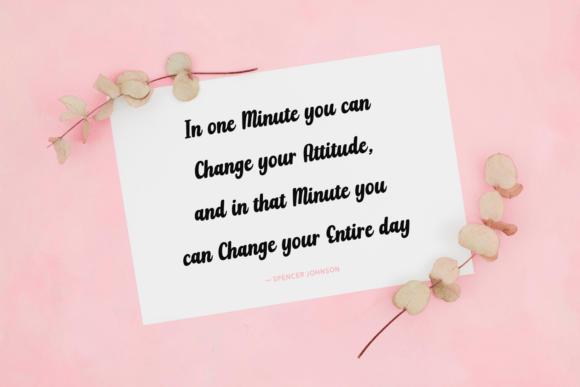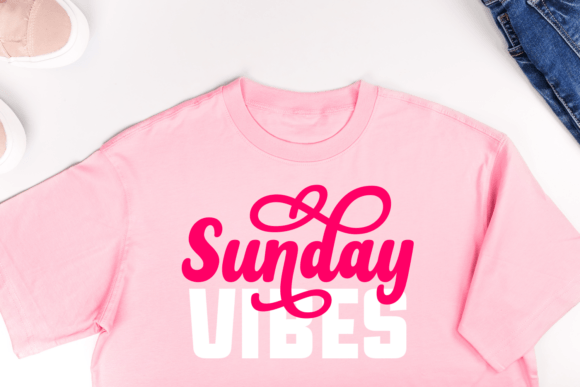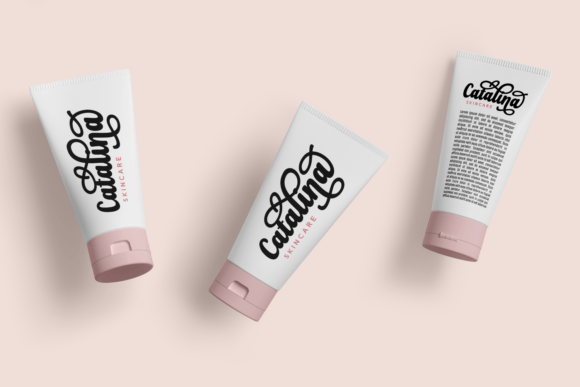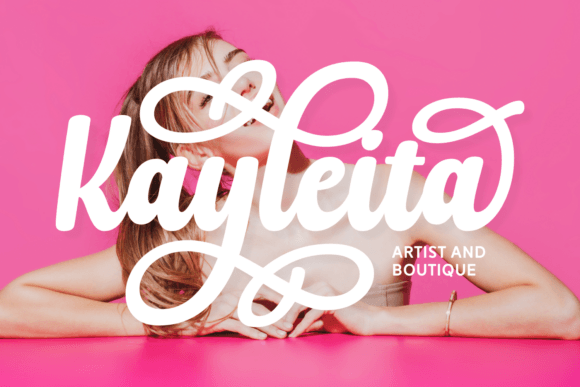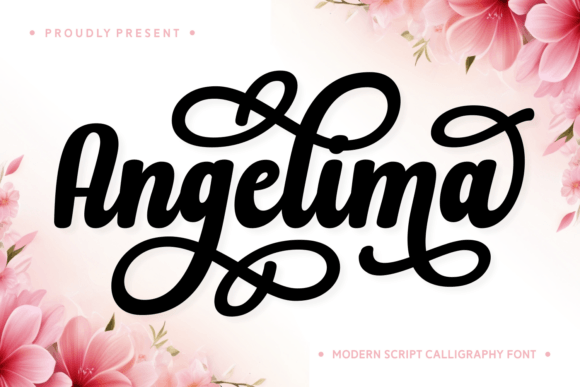
Discover the Elegance of Angelima Font: Elevate Your Designs with Sophistication
In the world of typography, few fonts manage to strike a balance between elegance and readability. However, Angelima Font effortlessly achieves this delicate balance, making it a go-to choice for designers and crafters looking to add a touch of sophistication to their projects. This bold and beautiful script font features elegant, flowing letters that are sure to make your creative endeavors stand out.
The Unique Charm of Angelima Font
Angelima Font boasts a stylish design that is both unique and captivating. Its elegant, cursive script is perfect for a variety of applications, from formal invitations and greeting cards to branding and packaging. The font’s distinctive flair adds a level of sophistication and refinement, making it an excellent choice for projects that require a touch of luxury.
One of the standout features of Angelima Font is its readability. Despite its ornate and flowing design, the font remains easy to read, making it suitable for both digital and print applications. This versatility is a significant advantage for designers and crafters who need a font that can adapt to different mediums and formats.
Whether you’re a professional designer or a crafty DIY enthusiast, Angelima Font is an excellent addition to your typographic arsenal. Its elegant design and flowing letters make it perfect for a wide range of creative projects, including:
• Invitations: Add a touch of sophistication to your wedding invitations, birthday party invites, or any other special occasion with Angelima Font.
• Greeting Cards: Create beautiful and elegant greeting cards for holidays, birthdays, or get-well wishes.
• Branding and Packaging: Use Angelima Font to add a touch of luxury to your brand’s packaging, labels, or marketing materials.
• Digital Designs: Incorporate Angelima Font into your digital designs, such as social media graphics, blog headers, or website elements.
Why Choose Angelima Font?
With so many fonts available, why choose Angelima Font for your creative projects? Here are a few compelling reasons:
• Unique Design: Angelima Font features a distinctive and elegant design that sets it apart from other script fonts.
• Readability: Despite its ornate design, Angelima Font remains easy to read, making it suitable for a wide range of applications.
• Versatility: Angelima Font can be used for both digital and print projects, making it a versatile addition to your typographic collection.
• Sophistication: Angelima Font adds a touch of sophistication and elegance to any project, making it perfect for formal or luxury applications.
Tips for Using Angelima Font
To get the most out of Angelima Font, here are a few tips to keep in mind:
• Use it sparingly: While Angelima Font is beautiful, it’s best used sparingly to avoid overwhelming the reader. Use it for headings, titles, or key phrases to add emphasis and elegance.
• Pair it with complementary fonts: Combine Angelima Font with complementary fonts to create visual interest and contrast. A simple sans-serif font or a classic serif font can provide a nice contrast to Angelima’s elegant script.
• Experiment with colors: Angelima Font looks stunning in a variety of colors, from rich jewel tones to metallic shades. Experiment with different colors to find the perfect combination for your project.
In conclusion, Angelima Font is a bold and beautiful script font that offers a unique blend of elegance, readability, and sophistication. Its stylish design and versatility make it perfect for a wide range of creative projects, from invitations and greeting cards to branding and packaging. Whether you’re a professional designer or a crafty DIY enthusiast, Angelima Font is an excellent addition to your typographic collection.